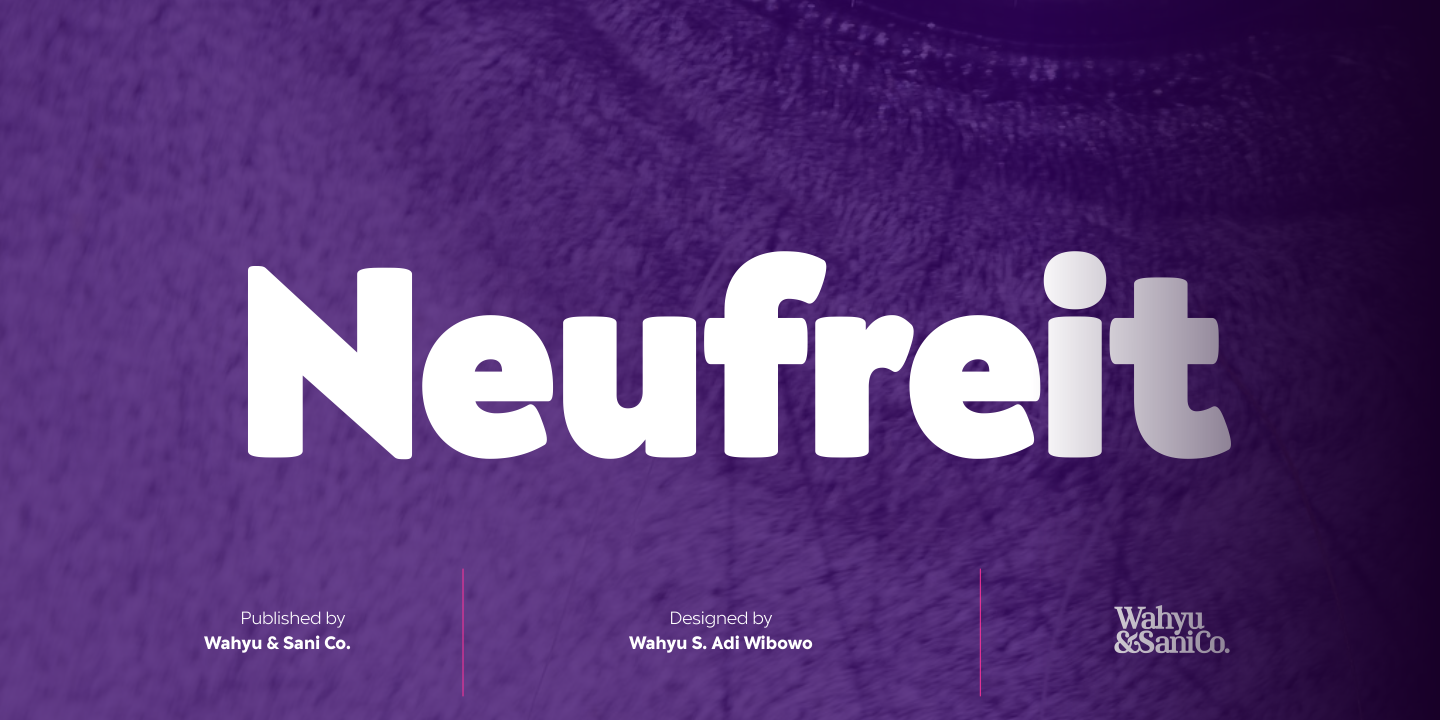
Neufreit Font is ideal for futuristic technology branding, cutting-edge software interfaces, innovative startup communications, modern architectural presentations, progressive digital products, advanced research institutions, contemporary art installations, forward-thinking corporate identities, space-age design projects, and next-generation technology marketing. This avant-garde typeface excels in applications where technological innovation and future-forward thinking need to be communicated with visionary clarity and progressive sophistication that embodies the essence of breakthrough technology and the revolutionary spirit found in cutting-edge digital advancement and scientific innovation.
What makes Neufreit Font exciting is its remarkable ability to project the visual language of tomorrow through its innovatively designed letterforms that seem to emerge from the future itself, capturing the essence of technological breakthrough and scientific advancement that defines the leading edge of human innovation. The font embodies the spirit of technological liberation with its forward-thinking construction and futuristic proportions that suggest the freedom from conventional design constraints and the bold exploration of new possibilities that characterizes revolutionary thinking. Its precisely engineered character details and visionary personality create an atmosphere of technological optimism that resonates with innovators, researchers, and technology pioneers who understand the transformative power of breakthrough thinking and advanced technological solutions.
The Neufreit Font family typically includes Light, Regular, Medium, and Bold weights, each maintaining the signature futuristic characteristics and technological sophistication. Some versions offer enhanced geometric variants that amplify the sci-fi aesthetic, alternative character sets with technical symbols and innovation indicators, and specialized treatments designed for digital interfaces and technology applications. The family may also include condensed styles for efficient tech layouts and display cuts optimized for maximum futuristic impact in technology and innovation communications requiring authentic forward-thinking credibility.
Whether you're creating technology brand identities, innovation-focused materials, or futuristic design communications, Neufreit Font Free Download delivers the perfect technological vision your future-oriented projects deserve. Its futuristic character and innovative styling make it an invaluable choice for technology companies, research institutions, and progressive organizations working in advanced technology, scientific innovation, and future-thinking sectors where authentic technological sophistication and visionary design are essential for establishing leadership in rapidly evolving technology markets and inspiring confidence in revolutionary solutions.